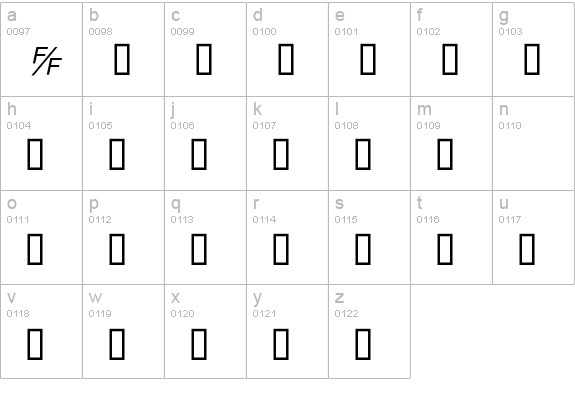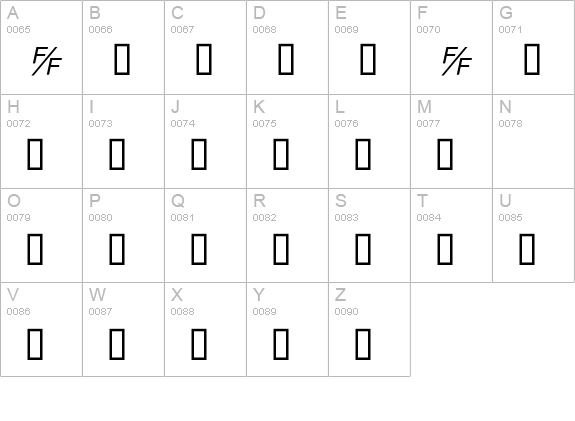
HelvFB Oblique Font Details
HelvFB Oblique is a distinctive, italic variant in the HelvFB typeface family \xE2\x80\x94 well suited to design and typography projects.
The HelvFB Oblique font is a sleek and modern typeface that exudes elegance and sophistication. Its slanted design adds a dynamic touch to any project, making it perfect for conveying a sense of movement and style. Whether used for headlines, branding, or editorial design, this font commands attention and leaves a lasting impression. What makes the HelvFB Oblique font even more appealing is that it is available for free download at FontsMarket.com. This means you can easily access this stylish typeface without any cost, making it a valuable addition to your font collection. Embrace the versatility and creativity that the HelvFB Oblique font offers, and elevate your designs with its unique flair and charm.